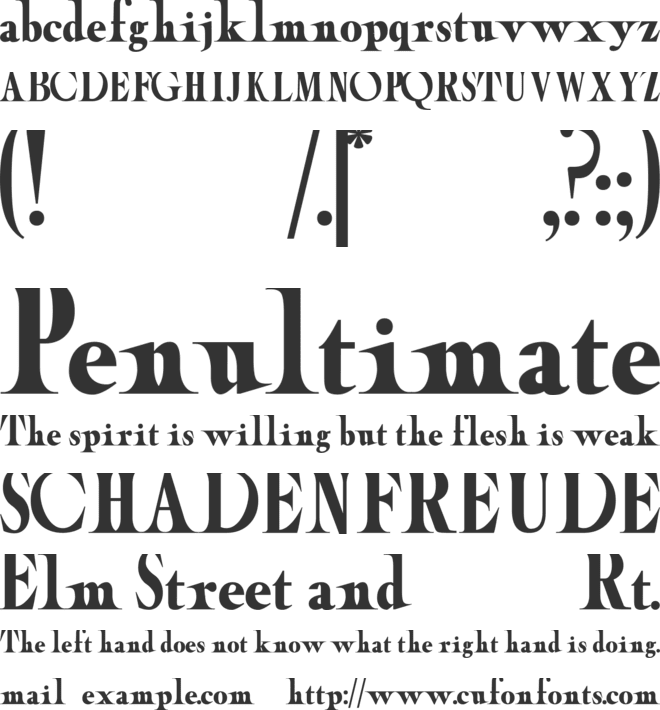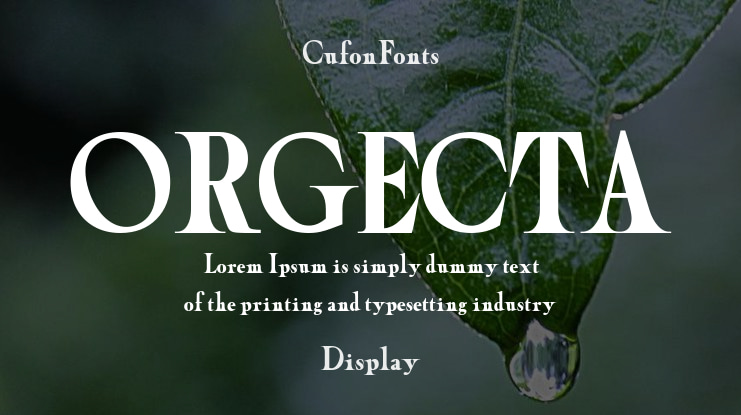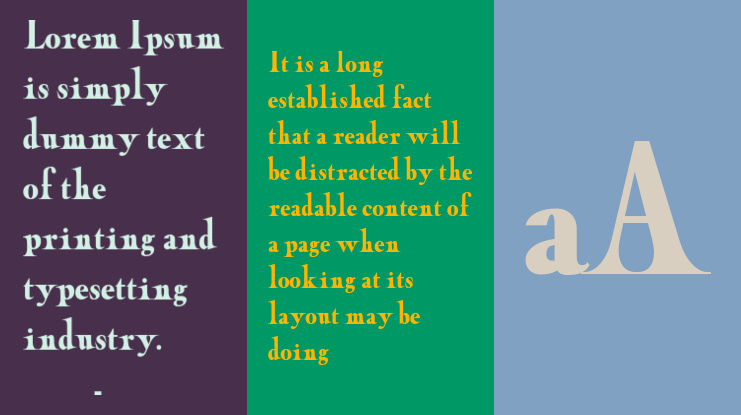
ORGECTA Font
🎨 Font Name: Orgecta by Minimalist Art Studio
🎨 Font Description: Orgecta is an elegant serif with graceful contrast and timeless poise, perfect for branding, fashion editorials, and minimalist luxury design.